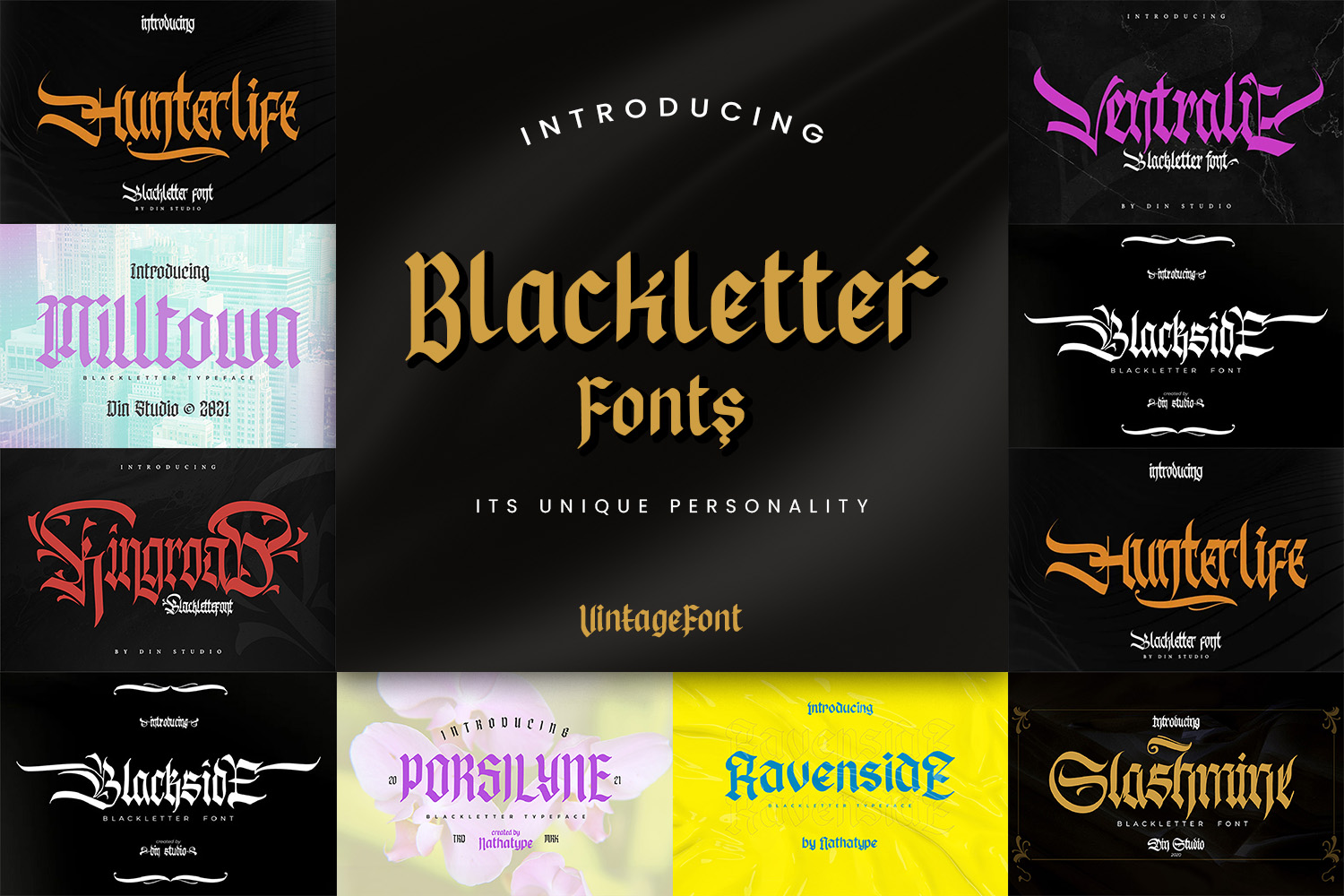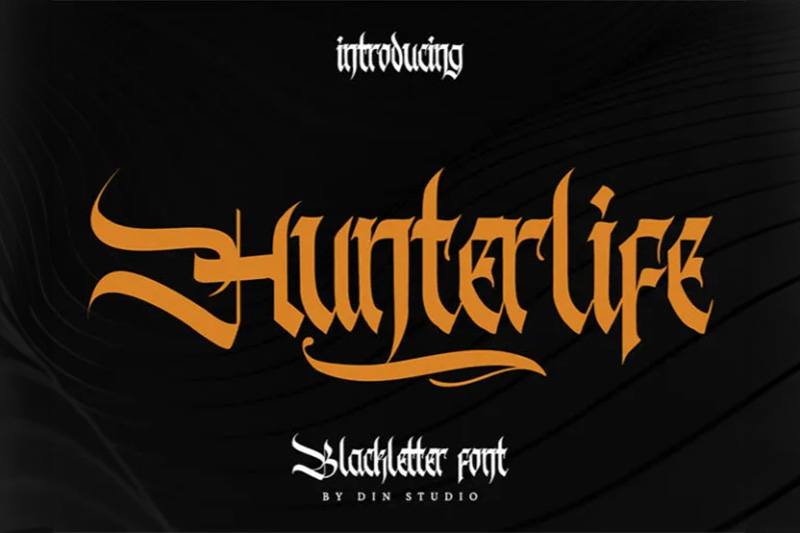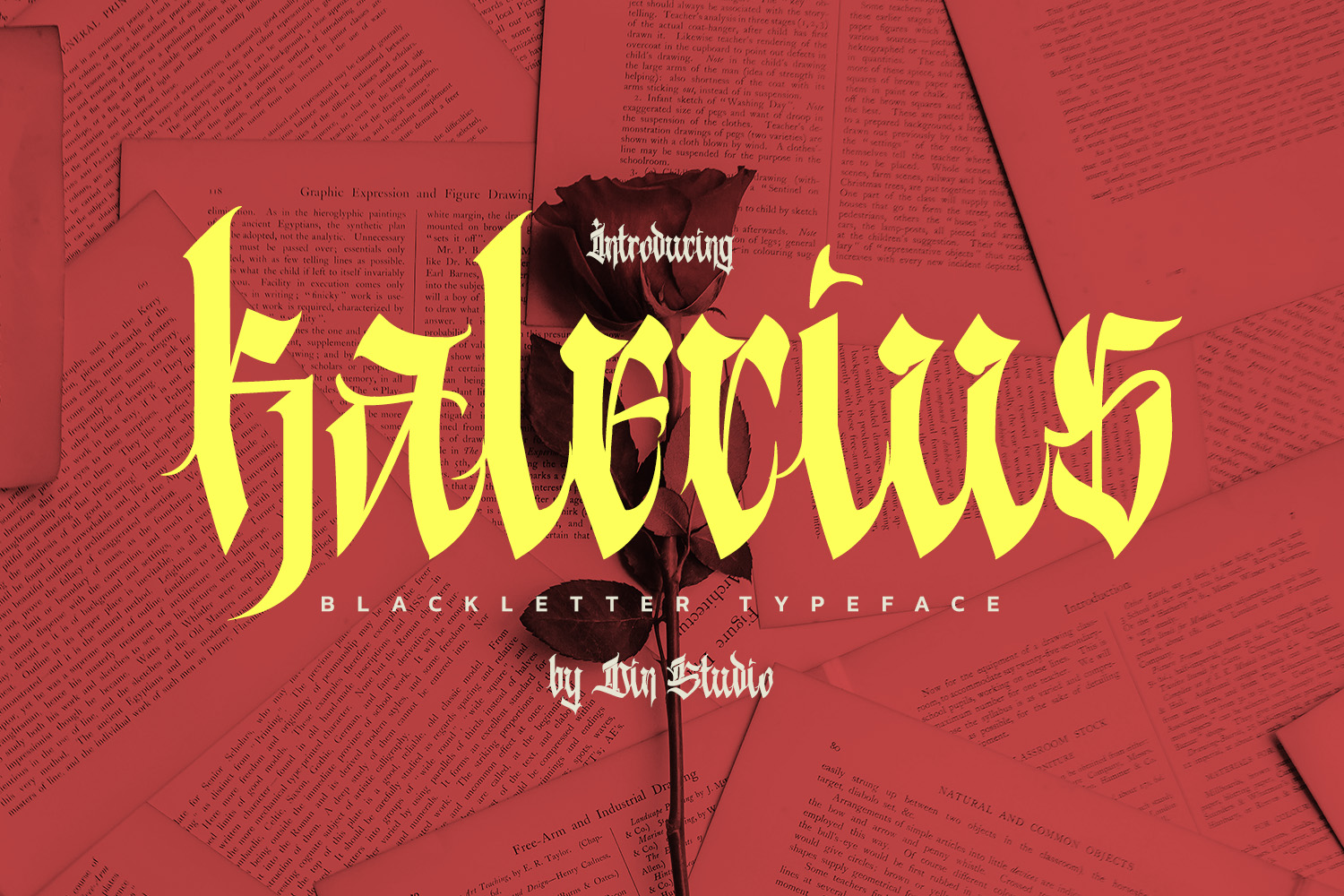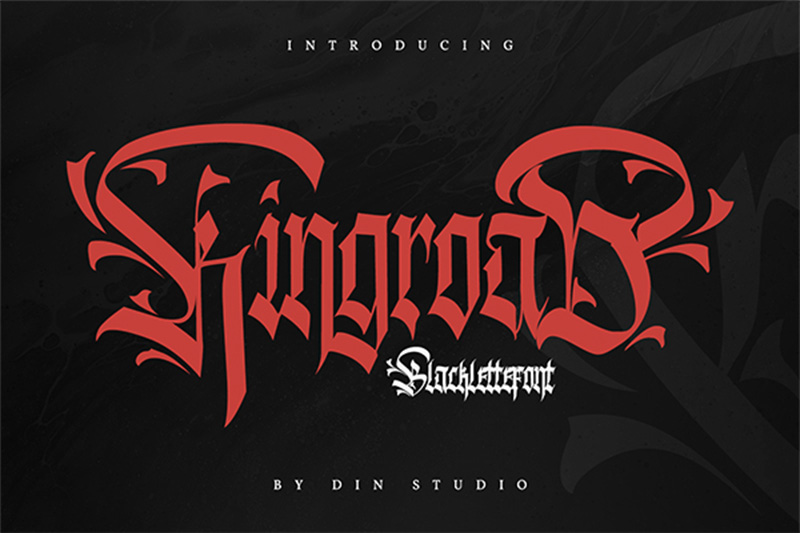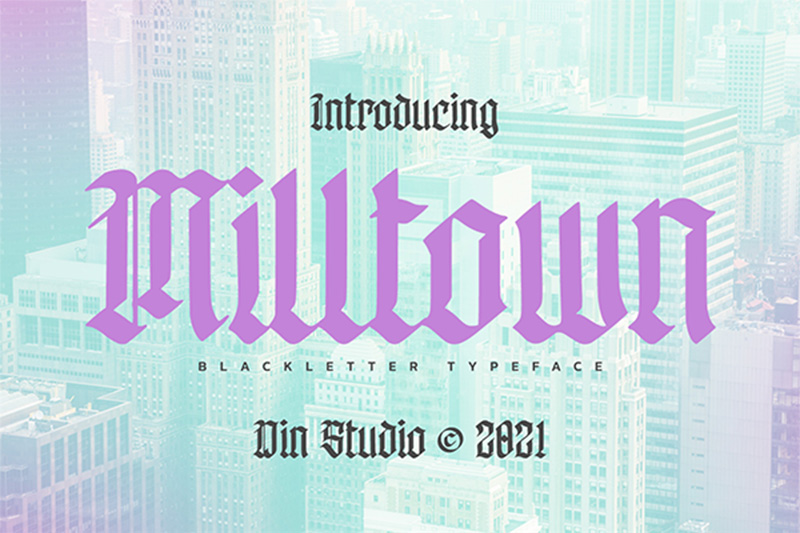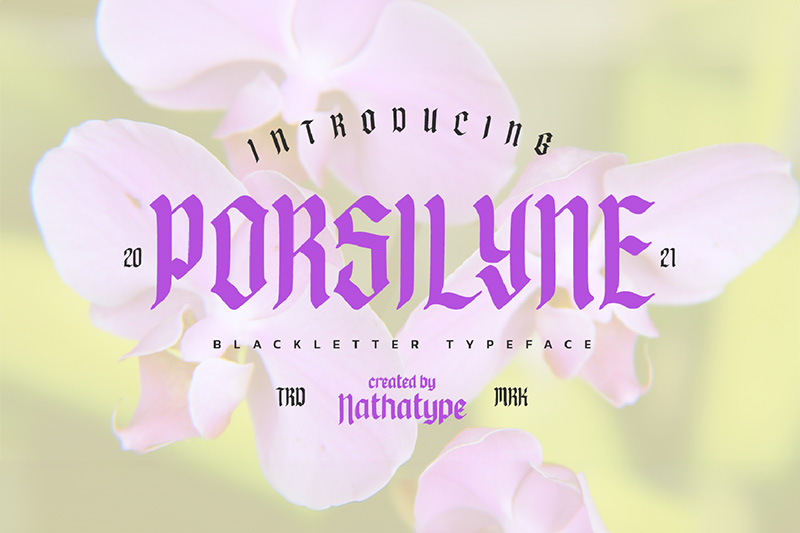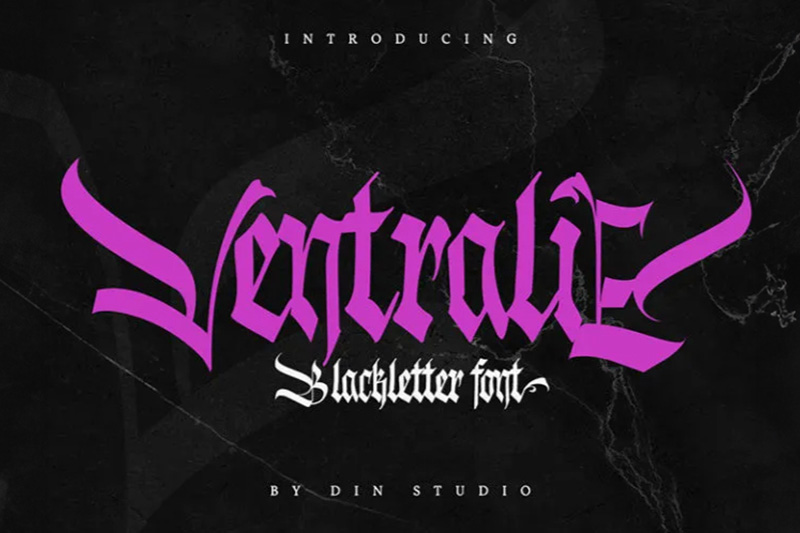
Blackletter Fonts and Its Unique Personality: A Recommendation
Blackletter fonts draw inspiration from the striking and bold calligraphic styles of the medieval era, showcasing a distinctive set of typefaces that evoke a sense of history and artistry. Blackletter font offers distinctive features, with both capital and lowercase letters showcasing striking strokes and decorative curves on the serifs. Furthermore, this font type provides characteristics that are both timeless and sophisticated, featuring dense letterforms that exude a sense of elegance.
Originating in the Middle Ages, blackletter fonts emerged as a distinctive style of handwriting. The development laid the foundation for pioneers who would later establish printing companies, known as type foundries. In the 15th century, Johannes Gutenberg revolutionized the world by utilizing a printing press to produce copies of the Bible in the striking blackletter typeface. The pen was positioned at a 45-degree angle, providing a formal elegance to this typeface.
Blackletter fonts were popular as a gothic style because many humanist artists considered them to be something barbaric. Even now, we still use this letter type to create headlines because it still relates a lot to modern typography.
In today’s varied media landscape, blackletter fonts have captured a fresh audience, offering a bold contrast that stands out in various forms of branding and art. The continual popularity of this font highlights its timeless strength. As a result, this style of font becomes a captivating and influential force for designers and history enthusiasts alike.
3 Distinct Characters of Blackletter Fonts
Listed below are the general view of blackletter fonts’ characteristics:
• Having an artistic style: The characters of blackletter fonts exude a distinctive style, deeply influenced by the elegant calligraphy of the medieval era. The design is largely solid, featuring ornate details in the ascender sections and the uppercase elements.
• Having contrast strokes: The shape of blackletter font letters is usually characterized by slanted strokes that mimic calligraphy handwriting, creating a sharp contrast between thick and thin lines.
• Mostly serif style: Most blackletter fonts have serifs, which are small curves at the ends of letter strokes, intricately formed and adding a stylish impression to the overall appearance.
Blackletter Styles
Blackletter offers various styles perfect for adding personality or capturing attention. Despite its ancient origins, blackletter font continues to make a striking impact in contemporary logo designs, newspapers, tattoos, and social media content. A brief overview of the popular blackletter font family is as follows:
Textura
First, we have Textura, the most classic and calligraphic blackletter style. The letter is tall, thin, and sharp, with short, disconnected strokes. Because of its solid and formal look, Texture is ideal for formal or religious documents.
Fraktur
Next, there is Fraktur. The style of Fraktur is the most popular and iconic blackletter, especially in Germany. Because it is so popular, many people think Fraktur is synonymous with Blackletter. Fraktur features letterforms that are more curved and artistic than those in Textura.
Rotunda
The Rotunda has a more rounded shape and is not too rigid, making it easier to read. Rotunda has a letter shape that is rounder and more open. Because of that, Rotunda is considered easier to read and lighter visually. Italy and the Mediterranean region frequently use this style, which has inspired numerous fonts with a classic yet reader-friendly feel.
Schwabacher
Schwabacher is a transitional style between Textura and Fraktur. Its characteristic is the smaller and rounded letterforms, with a handwritten touch, especially in the form of “g” with the bottom curving inward. Whereas the “h” has an arch at the top. Schwabacher was widely used in Germany before Fraktur took over its popularity.
Cursiva
Cursiva is a free-flowing version of blackletter that resembles connected handwriting. So the writing becomes more practical and quicker to create, which is why cursive is suitable for designs that want to convey a classic yet elegant atmosphere.
Bastarda
Bastarda blends the elegance of Textura with the fluidity of Cursiva. It merges the solid structure of Textura with the graceful fluidity of Cursiva’s script. This style flourished between the 14th and 16th centuries, frequently decorating literary manuscripts and official documents.
Blackletter Fonts
Now that we have known about blackletter styles, let’s discuss the best blackletter fonts you can utilize to enhance your design level. Each of our recommended blackletter fonts has distinct features in its strokes, shapes, and visuals.
Blacktones